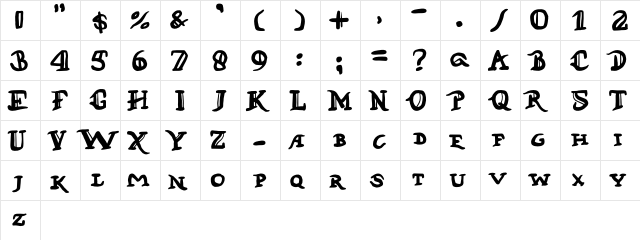
PIRATE VIKING Regular
| Foundry | @Afterthem_Studio |
| Designer | Feri Fauzi |
Design Context for PIRATE VIKING Typeface
PIRATE VIKING is a composed and adaptable typeface that performs quietly and consistently across a wide range of design contexts.